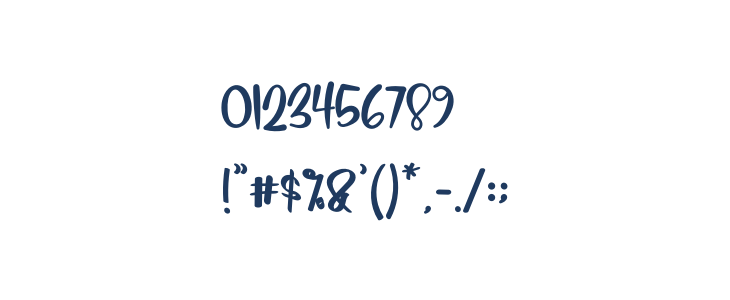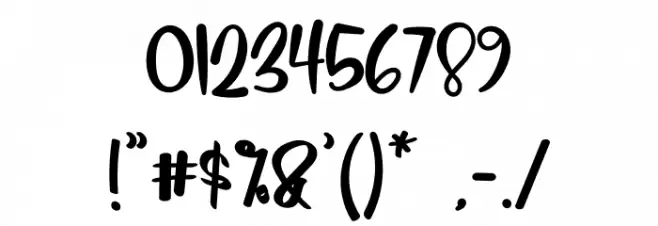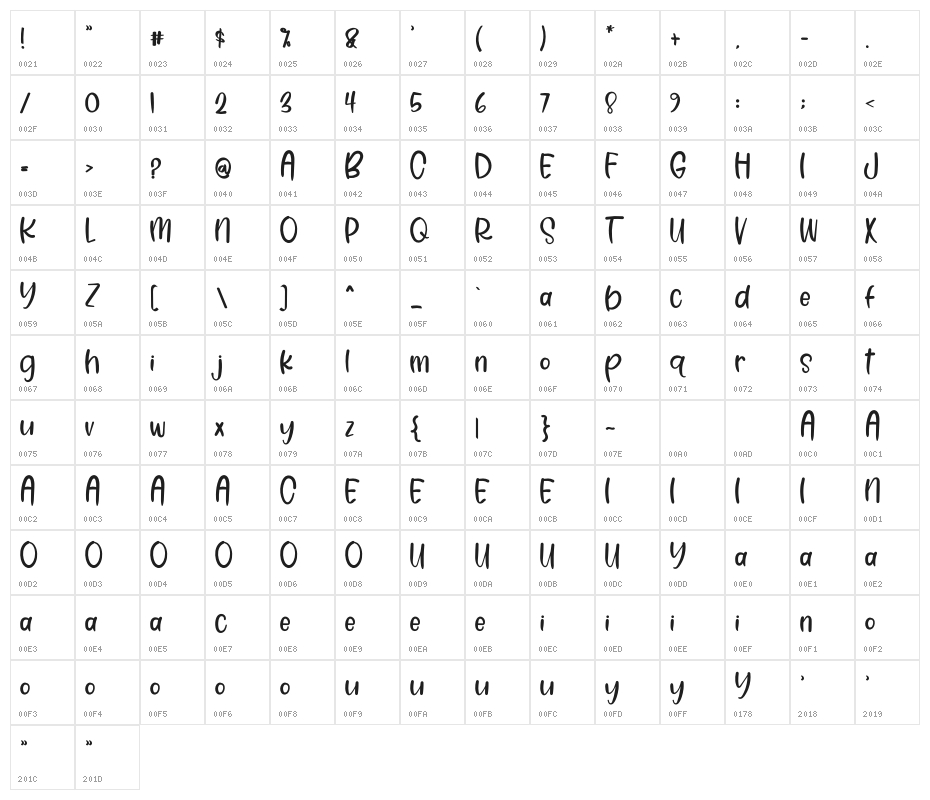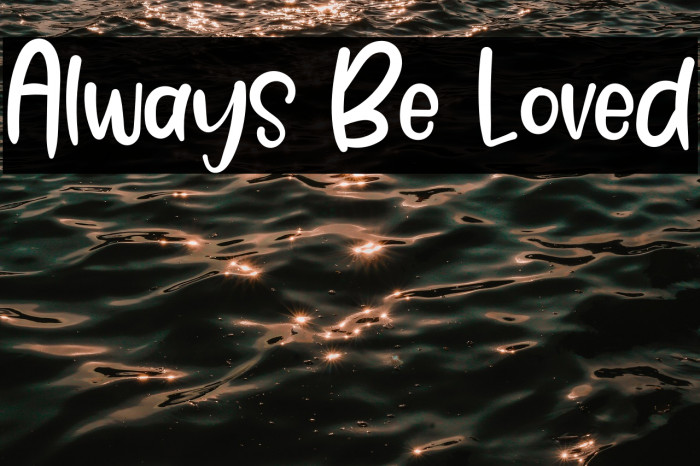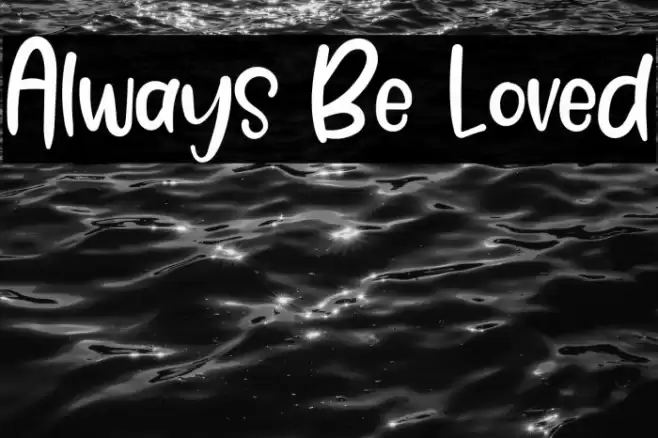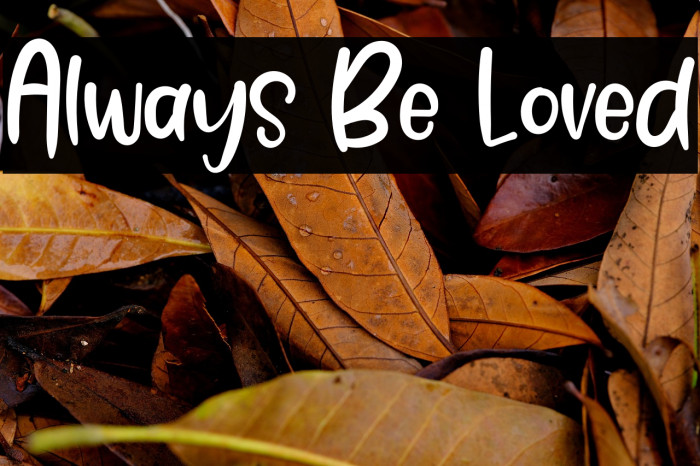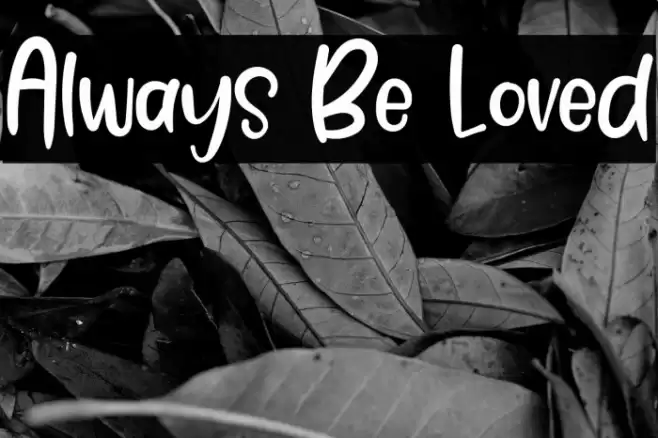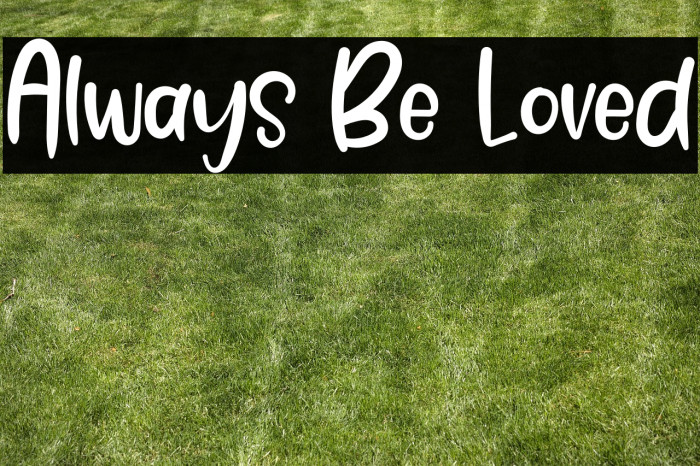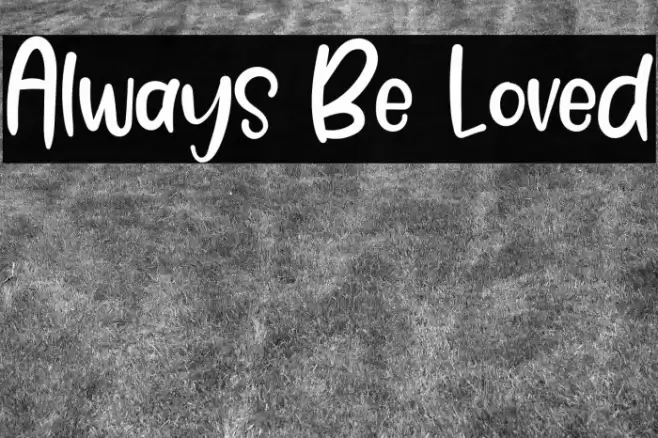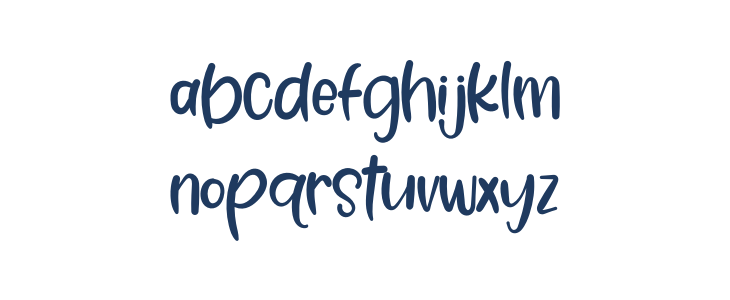
Always Be Loved Font
Always Be Loved Description
This font features a playful and whimsical style, characterized by its rounded and flowing letterforms. The uppercase and lowercase letters maintain a consistent, casual aesthetic, with a slight slant that adds a dynamic feel. The strokes are bold and uniform, giving the font a strong presence while remaining approachable and friendly. The numerals and special characters complement the alphabet with the same lively and informal design. This font's overall appearance is both modern and fun, making it suitable for a variety of creative applications.